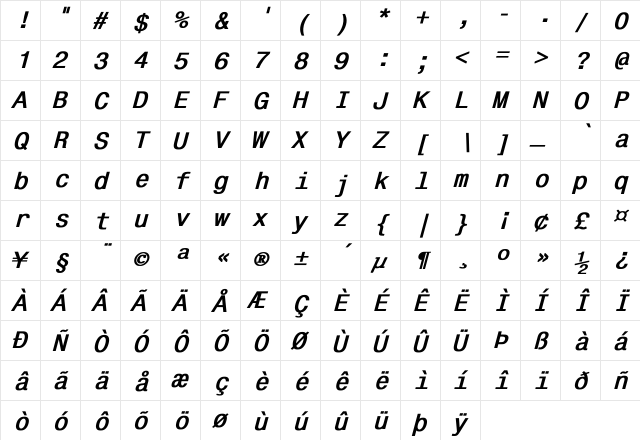
Monospace821 Bold Italic Font Preview
Monospace821 Bold Italic
Design Context for Monospace821 Typeface
Monospace821 brings the precise, column-aligned rhythm of monospaced typography to designs that value technical clarity and systematic order. Its italic angle brings a sense of urgency and motion to the letterforms. The heavy weight commands attention and anchors typographic hierarchies.
Pro Tip: Pair Monospace821 with a proportional sans for UI contexts where code-style labels and regular body copy need to coexist.